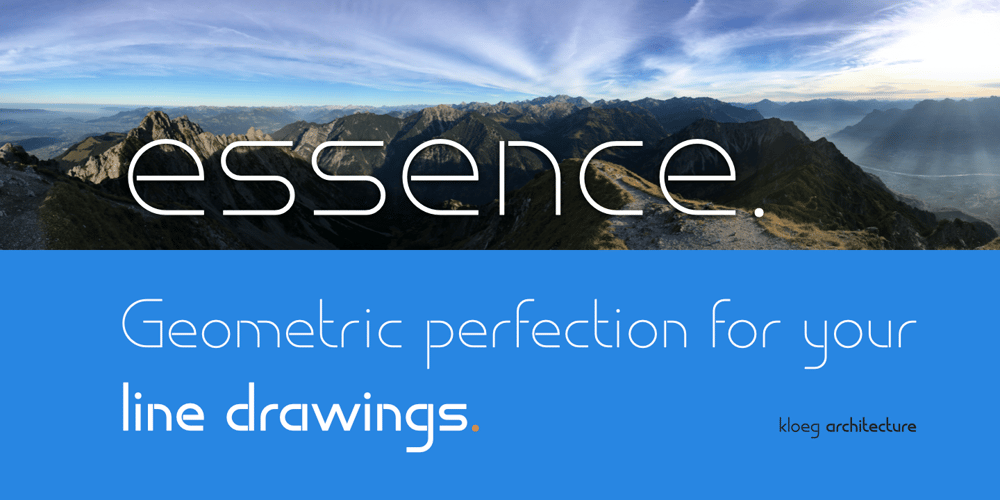
Essence Font Family was designed by David Kloeg and published by kloeg architecture. Essence contains 5 styles and family package options. This font is especially designed by architects for architect, urban planners, landscape architects, industrial and product designers. It is ideal for the use with line drawings. Because of it’s geometric shape it blends in with your drawings. It’s adjusted to fit most of the common line width types. It also contains many icons, especially for use in these professions. On top of that you can find many glyphs and icons to create legends and title blocks.More information about kloeg design.